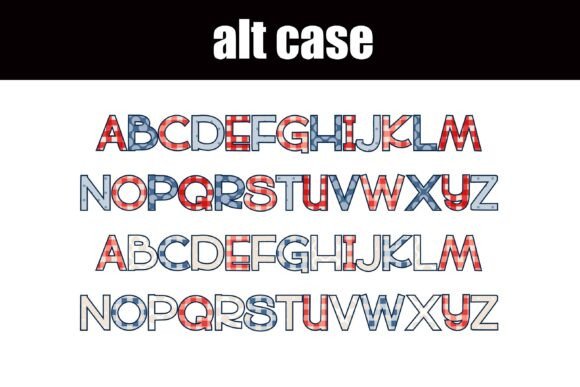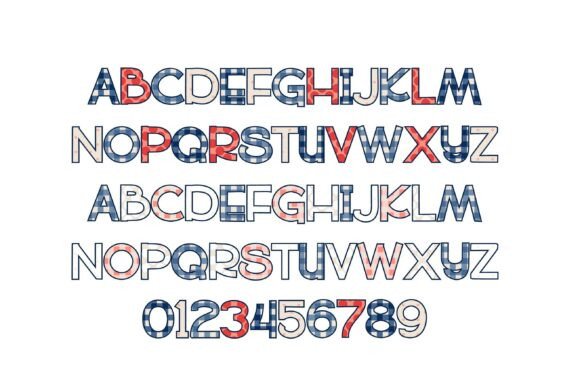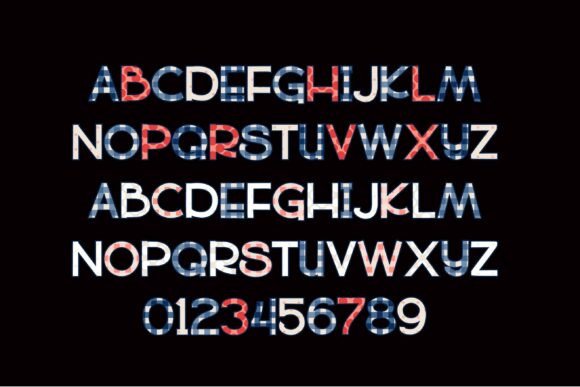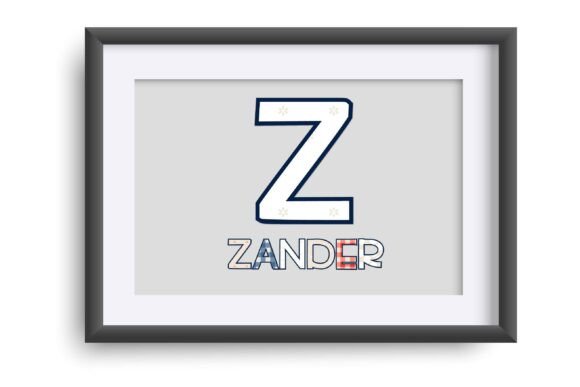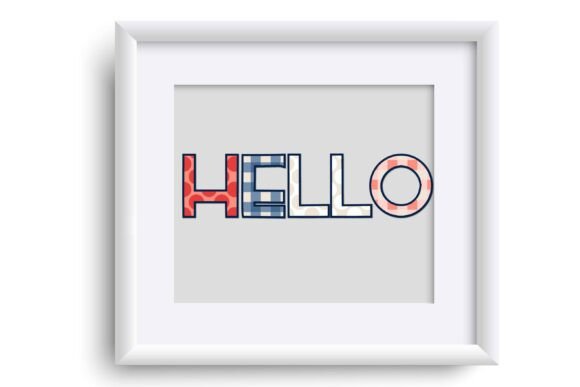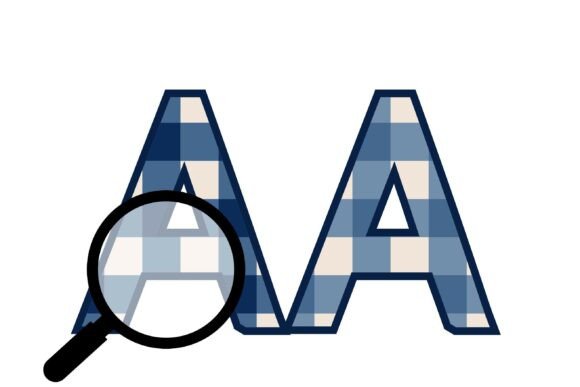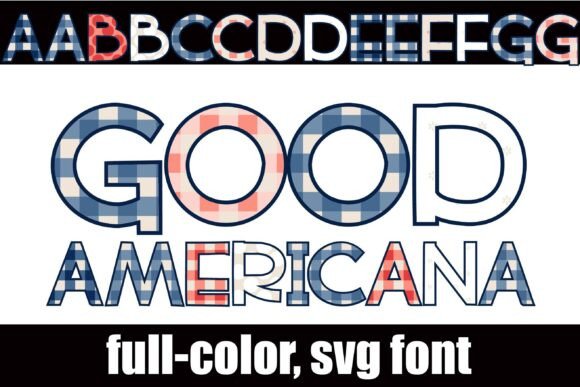
Good Americana Font: Elevate Your Designs with Vibrant Full-Color Patterns
Are you looking for a font that can add a touch of personality to your designs? Look no further than the Good Americana Font, a stunning full-color font featuring Americana patterns throughout. This versatile font is perfect for designers and crafters who want to create eye-catching text logos, illustrations, and more.
What Makes Good Americana Font Special?
The Good Americana Font is not your average font. It’s an OpenType full-color (SVG) font that allows you to access a range of vibrant colors and patterns. With an alternate case of alternate colorings of each letter, you can add an extra layer of creativity to your designs. The font is easy to install, just like any normal .otf font, and can be accessed through FontBook for Mac users or via your preferred font manager or Control Panel in Windows.
Benefits of Full-Color SVG Fonts
Full-color SVG fonts like Good Americana Font offer a range of benefits for designers and crafters. These include:
- Add a touch of personality: With a full range of colors and styles to choose from, you can create unique and eye-catching designs that reflect your brand or personal style.
- Vibrant colors: Unlike traditional fonts, full-color SVG fonts come to life with vibrant colors that can elevate your designs and make them stand out.
Design Ideas with Good Americana Font
The Good Americana Font is incredibly versatile, and the design possibilities are endless. Here are a few ideas to get you started:
- Simple text logos: Use the Good Americana Font to create eye-catching text logos that reflect your brand’s personality.
- Complex illustrations: With a full range of colors and patterns to choose from, you can create intricate illustrations that showcase your creativity.
- Paper crafting: The Good Americana Font is perfect for paper crafting projects, such as card making, scrapbooking, and more.